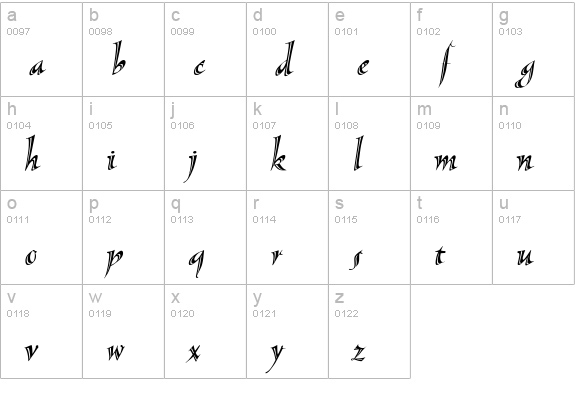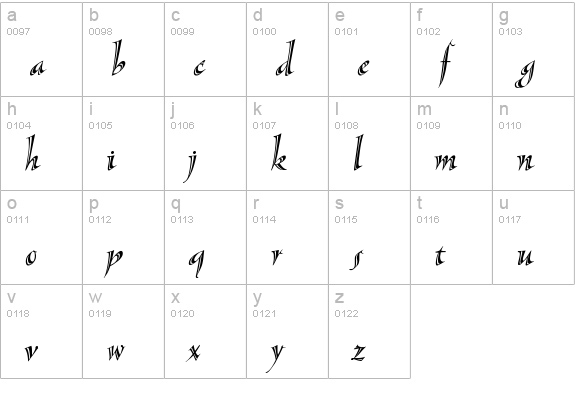
Sassafras-LxItalic is a charming and elegant font that exudes sophistication and creativity. With its unique italicized design, this font adds a touch of flair to any project or design. Perfect for invitations, logos, branding, and more, Sassafras-LxItalic is sure to make a statement. Best of all, this font is available for free download at FontsMarket.com. Whether you're a designer looking to add a stylish touch to your work or simply looking to bring a bit of personality to your projects, Sassafras-LxItalic is the perfect choice. Download it today and elevate your designs with this beautiful and versatile font.